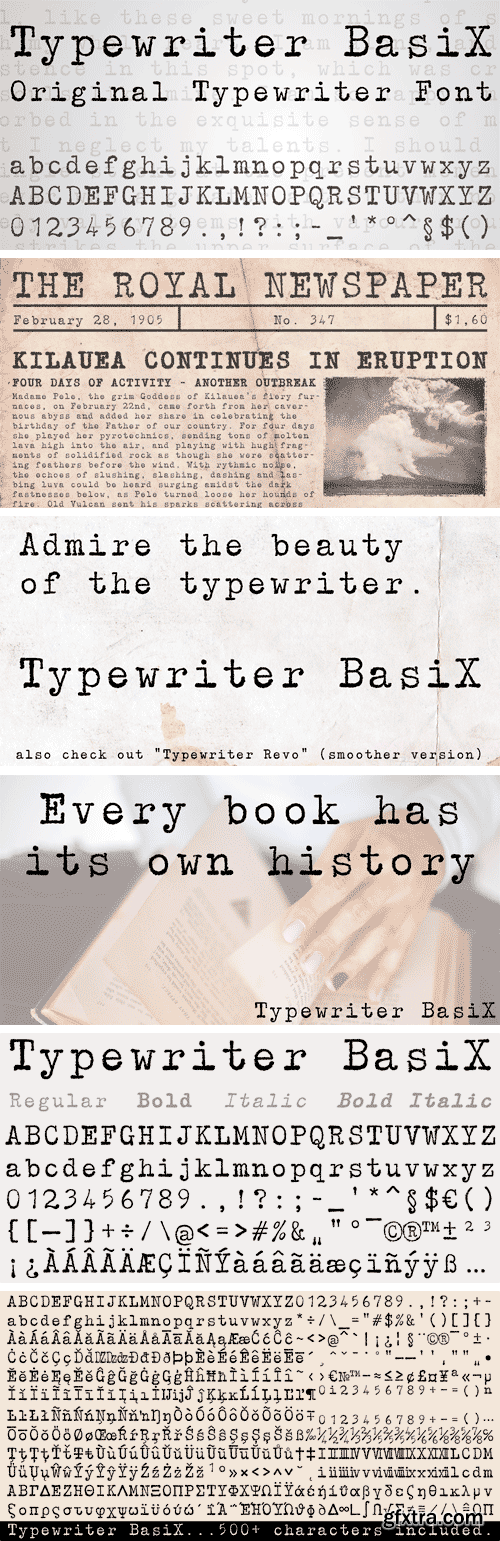
I found an old typewriter and well... Typewriter BasiX is the result. Enjoy this rough retro looking design to use for your digital or print project and also check out Typewriter Revo, the clean version of Typewriter BasiX.